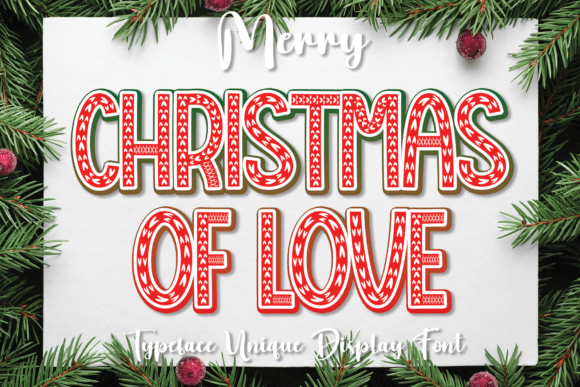
Christmas of Love Font
Roam through the enchanting realms of typography with Christmas of Love, a decorative font that captures the essence of festive joy and ornaments. This remarkable creation by andikastudio is the perfect addition to your design arsenal, adding a touch of magic to any project you embark upon.
Step into a world where imagination knows no bounds and creativity takes flight. Let Christmas of Love paint your words with a brush of elegance and charm, transforming ordinary text into captivating, designs that dance before the eyes. Elevate your interior design projects with a font that exudes warmth and cheer, bringing the festive spirit to life.
With Christmas of Love, you'll elevate your designs, capturing the hearts and minds of your audience. Its intricate details and playful spirit will add a touch of whimsy and enchantment to any room. Picture gorgeous holiday cards, captivating posters, and charming branding that will leave a lasting impression.
Join the charmed circle of creatives who have embraced Christmas of Love for their projects, and witness the transformation of ordinary designs into extraordinary works of art. Allow this font to be a vessel of your imagination, carrying your message with grace and style.
Unleash the boundless potential of Christmas of Love today and embark on a creative journey filled with love, laughter, and joyful expression. Let your imagination soar to new heights as you witness the transformative power of this captivating font.